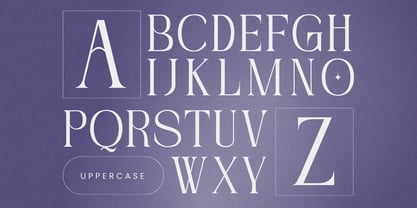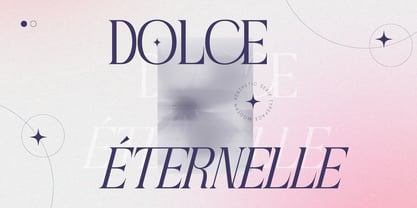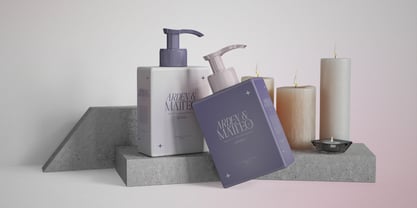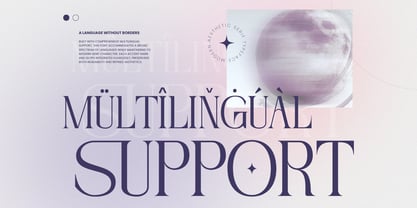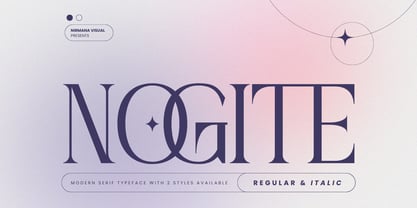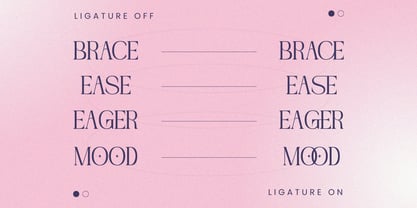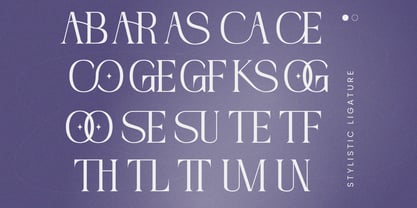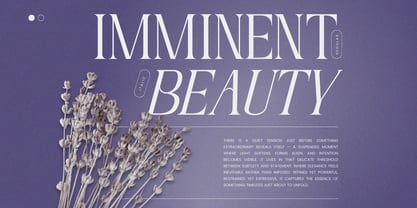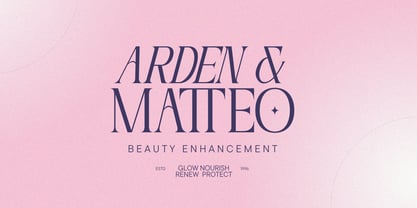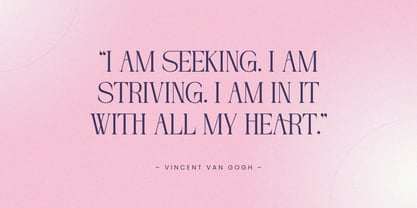
Nogite Modern
The Nogite Modern Font Family was designed by Sigit Dwipa and published by Nirmana Visual. Nogite Modern contains 2 styles and family package options. More about this family
Nogite Modern is a refined, contemporary typeface that blends minimalist structure with soft elegance. Its clean lines and subtle curves create a graceful rhythm, while the italic style adds a touch of movement and sophistication. Perfect for logo design, luxury branding, skincare packaging, beauty labels, and fashion editorials, Nogite Modern evokes confidence, purity, and modern femininity.